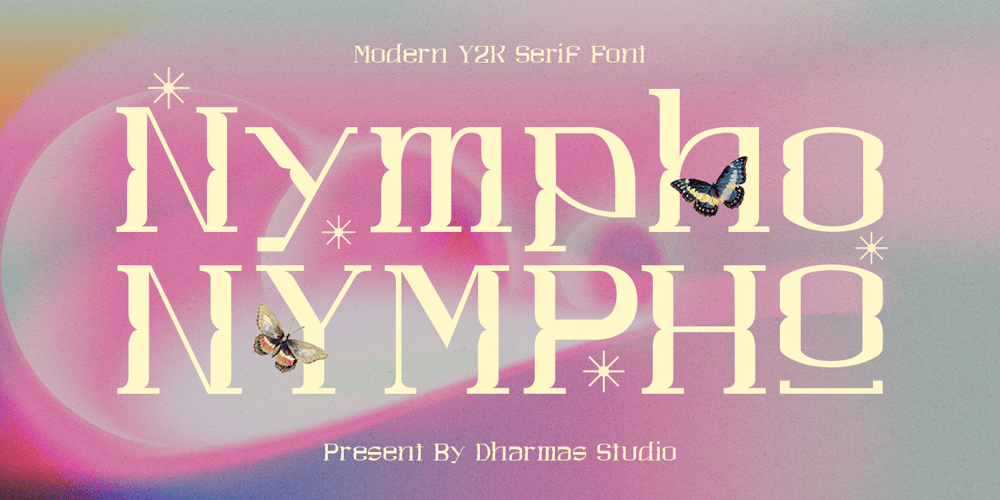
Nympho Font Family was designed by Ahmad Jamaludin and published by Ahmad Jamaludin. Nympho contains 1 styles and family package options. Introducing our exciting new font, NYMPHO! 🎉✨Nympho – The perfect blend of modern Y2K vibes and unique style, featuring letter shapes that resemble playful rectangles.Nympho – Incredibly versatile and will elevate your projects, whether it’s designing eye-catching magazine layouts, captivating posters, or any other creative endeavor. With its style preview channeling the coolness of the 90s and a touch of Y2K nostalgia, “Nympho” is ready to add a friendly and trendy twist to your designs.Features: Nympho Instructions ( Access special characters, even in Cricut Design ) Have alternate with all characters (Uppercase & Lowercase) Regular and Clean version Unique letterforms Works on PC & Mac Simple Installations Accessible in Adobe Illustrator, Adobe Photoshop, Microsoft Word even work on Canva! PUA Encoded Characters Fully accessible without additional design software. Get ready to unleash your creativity with Nympho!Enjoy Designing!Dharmas Studio